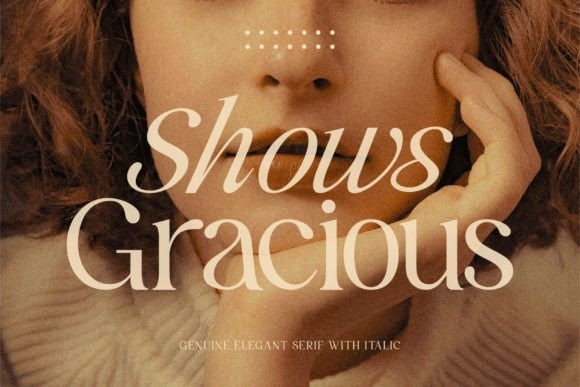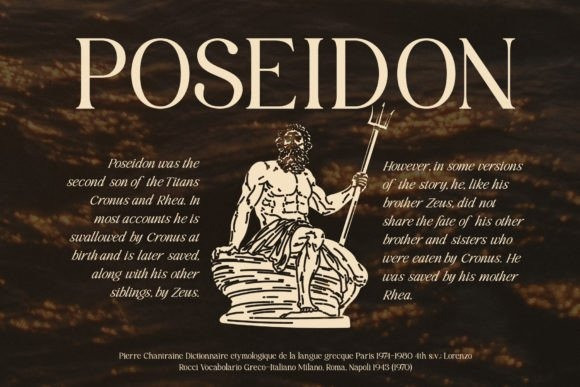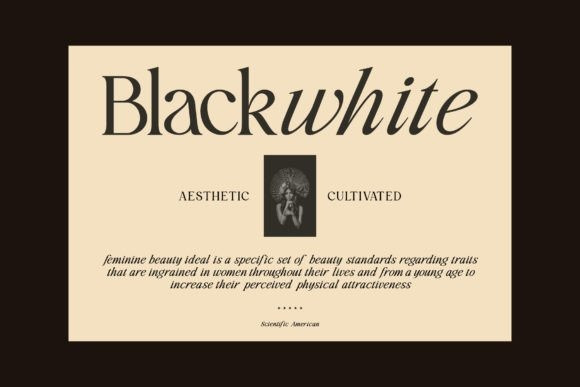
Shows Gracious Font
Shows Gracious is a refined and sophisticated serif font. With its smooth curves and elegant style, this font is perfect for a wide range of special projects. Add it confidently to your creative ideas and you will be amazed by the outcome generated!